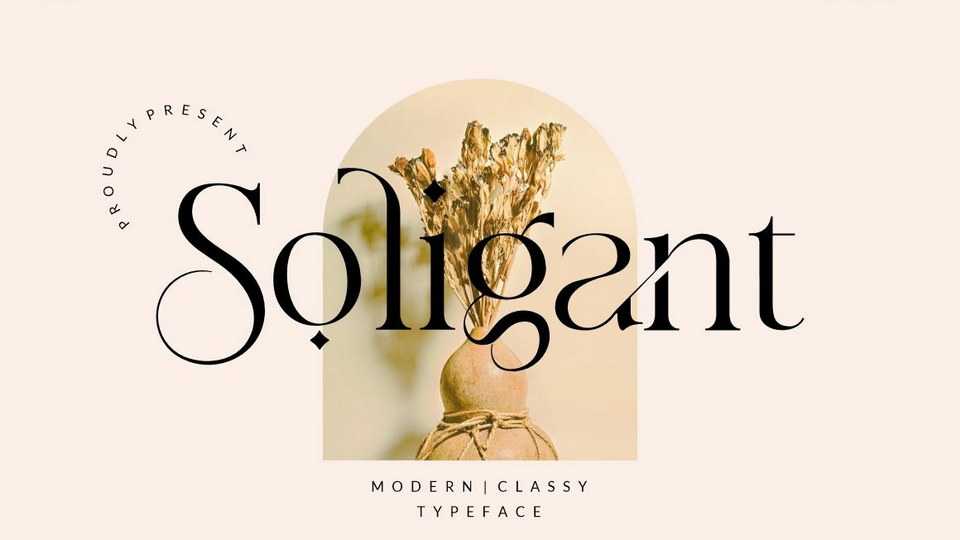
Download Soligant font, a unique, elegant and classic serif typeface with a vintage chic look. Soligant is perfect for your projects, such as luxury logo and branding, classy editorial design, magazine, cosmetic brand, fashion, wedding and more.